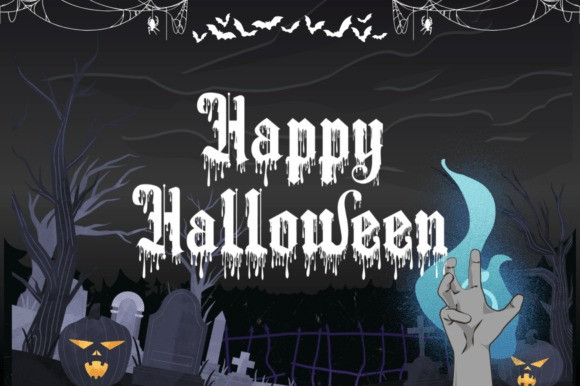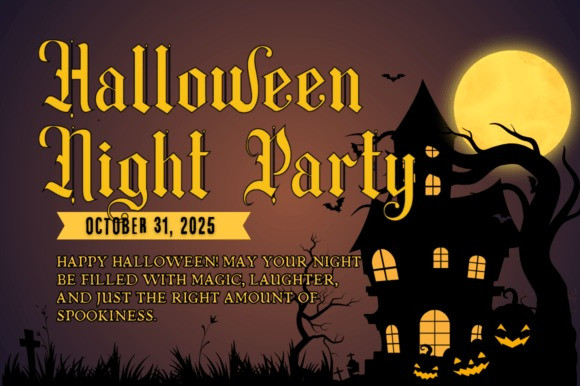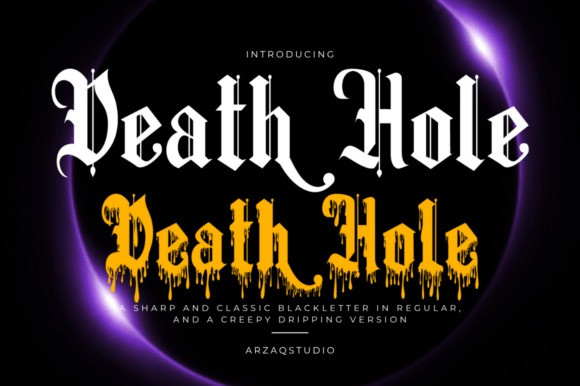
Death Hole Font
Death Hole Font is a bold gothic typeface designed in two striking styles: a sharp and classic blackletter regular, and a creepy dripping version perfect for horror-themed projects. This font brings intense character and atmosphere to posters, album covers, gaming titles, metal band logos, Halloween designs, and dark branding concepts.
With its dramatic strokes and haunting dripping effect, Death Hole offers versatility for both elegant gothic compositions and full-on horror designs. Ideal for designers who want to add mystery, intensity, and a chilling visual impact to their creative work.